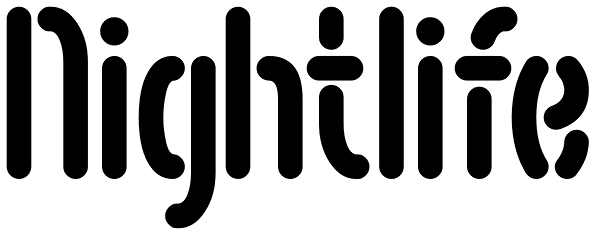
Nightlife
Nightlife is a neon style font family reminiscent of Broadway, Hollywood, Las Vegas and the bright lights and razzamatazz of show business. Not that I want to typecast it. It’s a fluid type style that is equally at home on food and drink...
Nightlife Italic
Nightlife